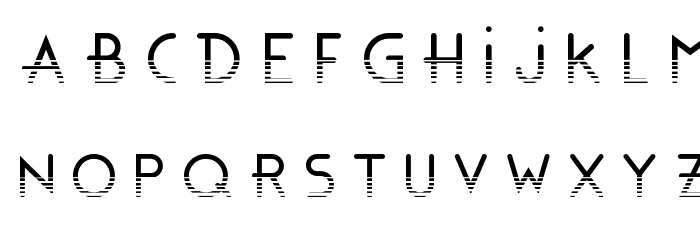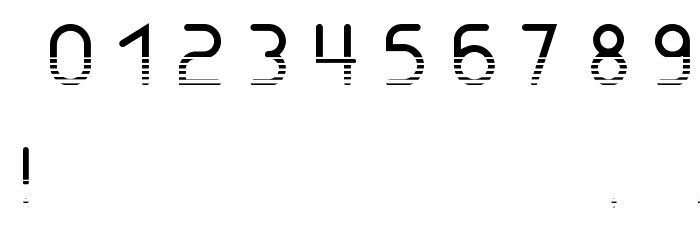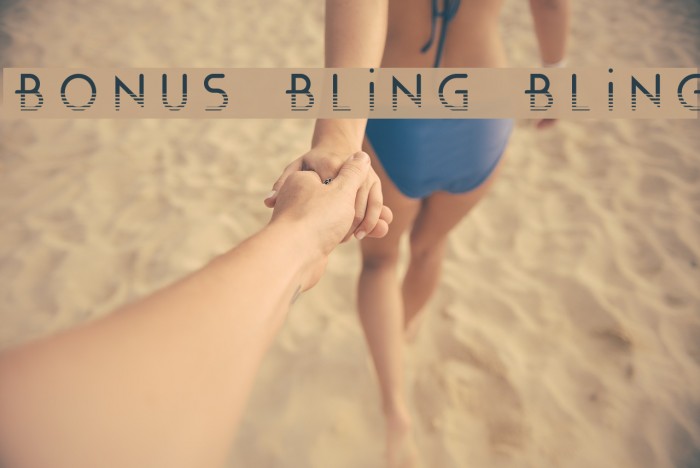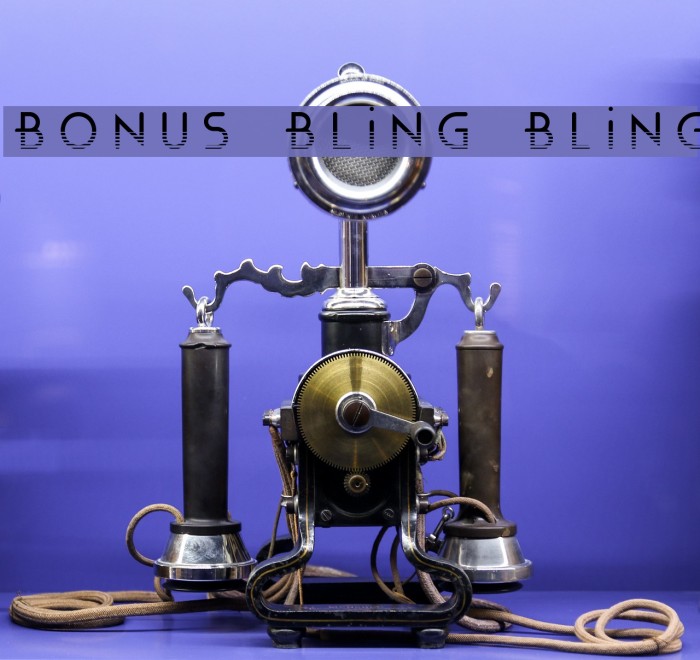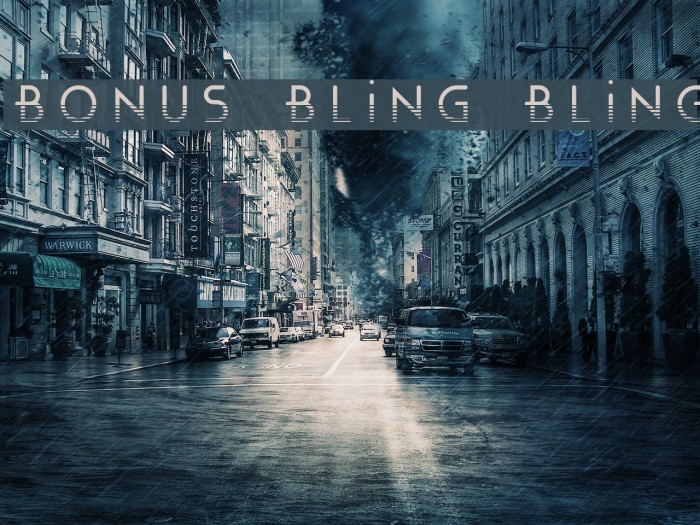
Bonus Bling Bling Font
This font features a modern, decorative style with a unique striped pattern running horizontally through each character. The uppercase and lowercase letters maintain a consistent design, creating a cohesive look. The numbers and special characters follow the same aesthetic, ensuring uniformity across all glyphs. The font's distinct appearance makes it stand out, with a futuristic and slightly playful vibe. The clean lines and geometric shapes contribute to its modern appeal, while the striped detailing adds an element of intrigue and visual interest.
A modern, decorative font with a unique striped pattern and geometric shapes.
- Proposed Projects: Ideal for futuristic designs, tech-related branding, or creative posters where a modern and eye-catching font is needed.